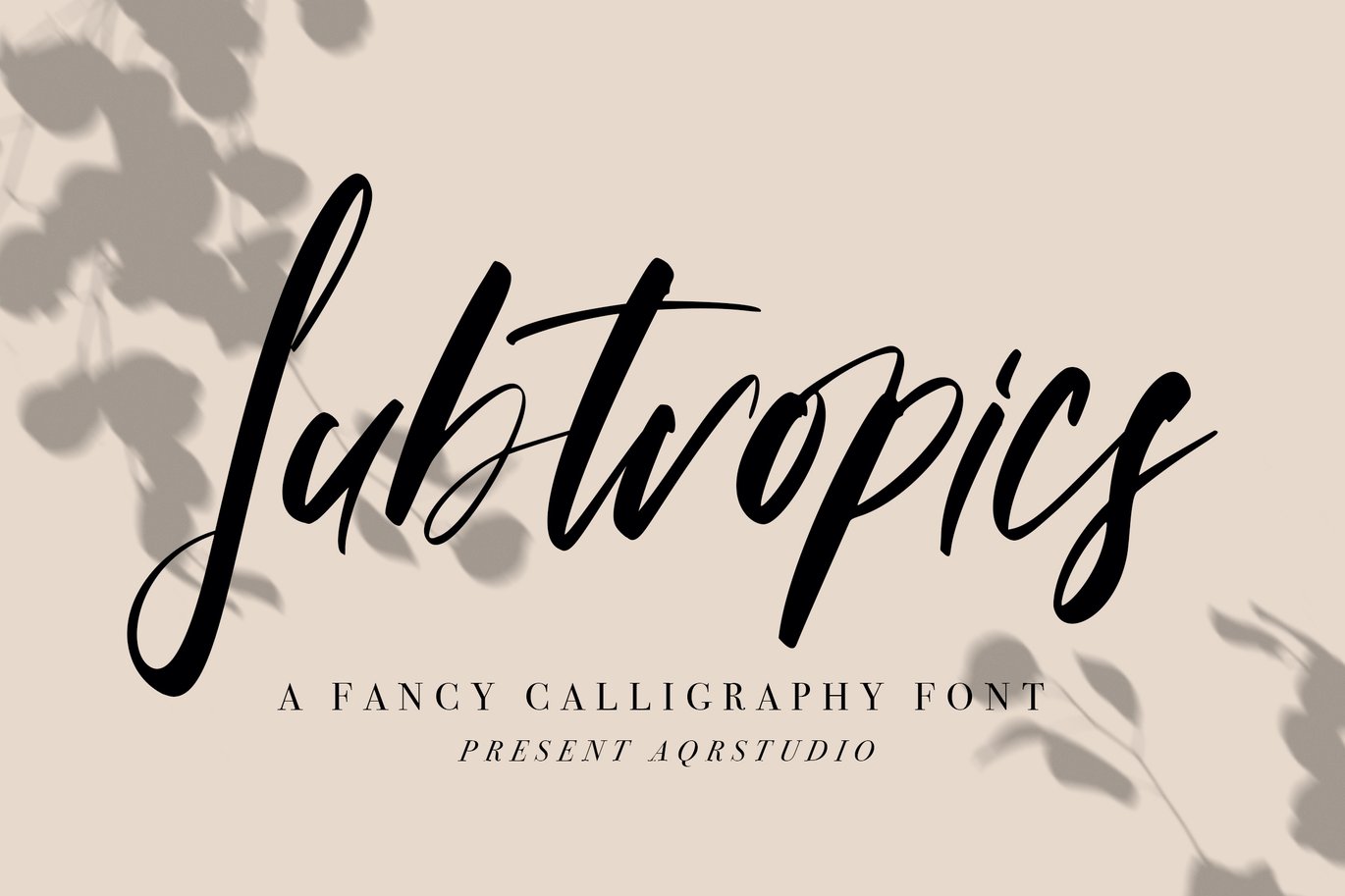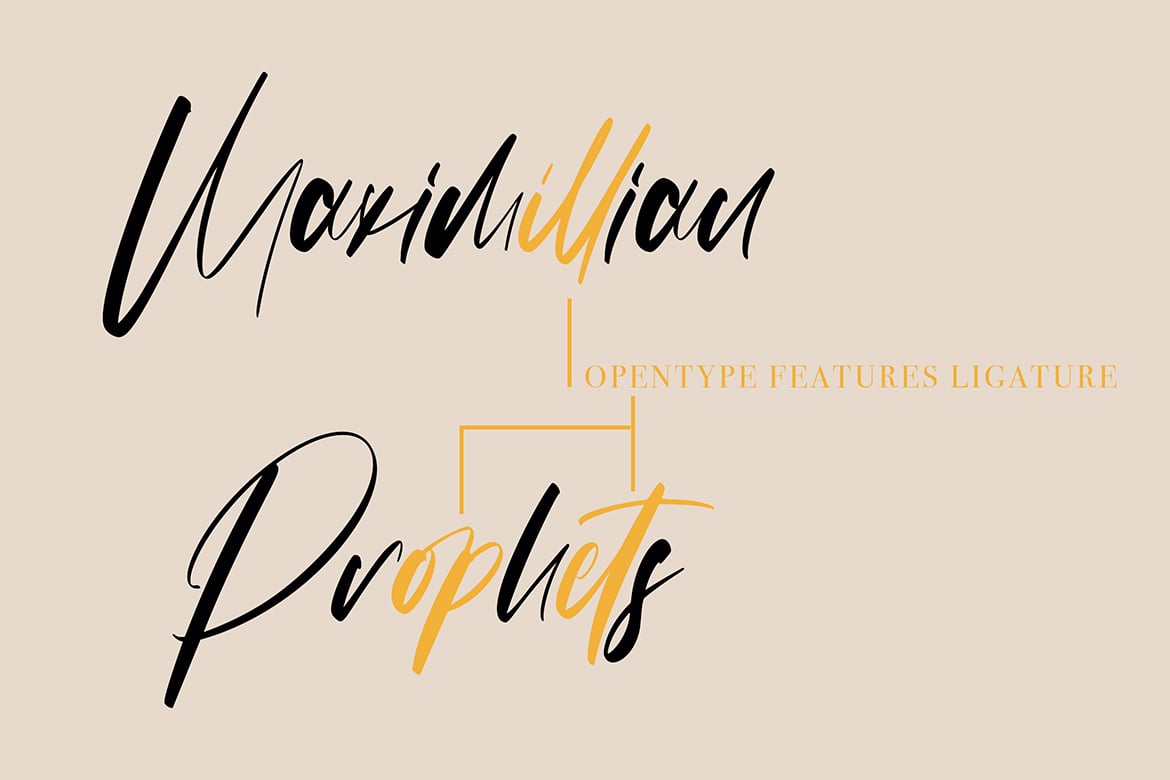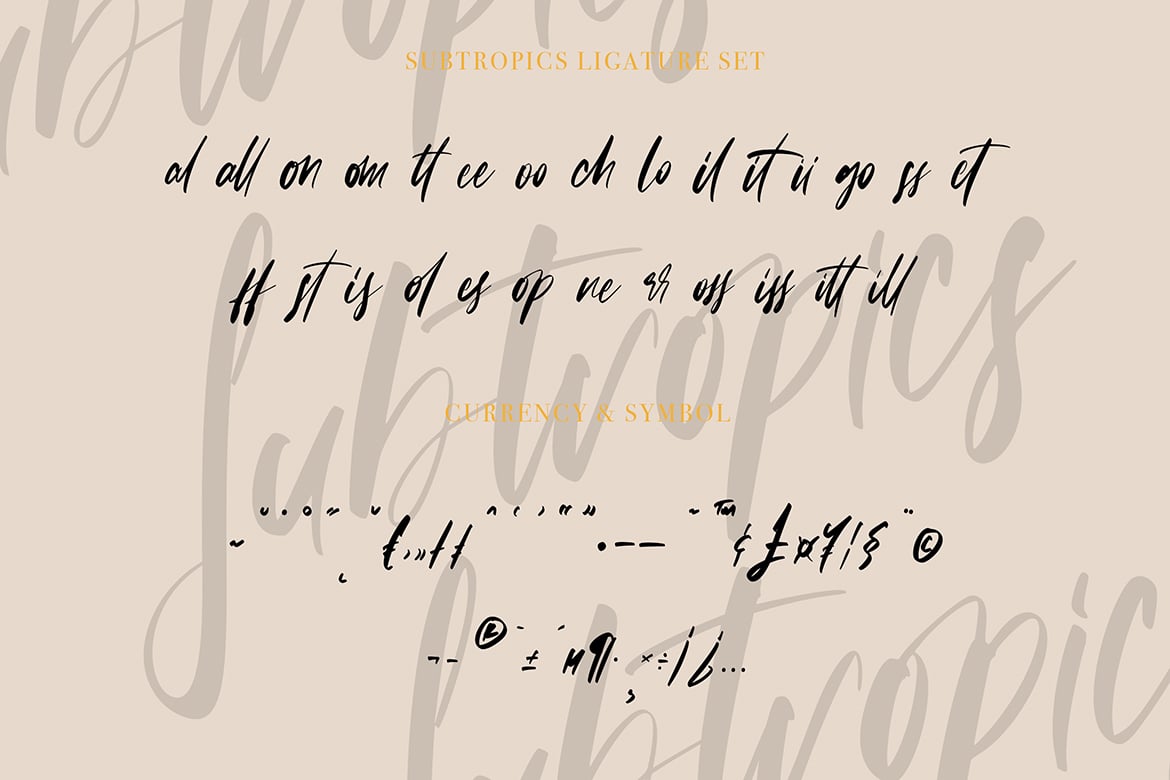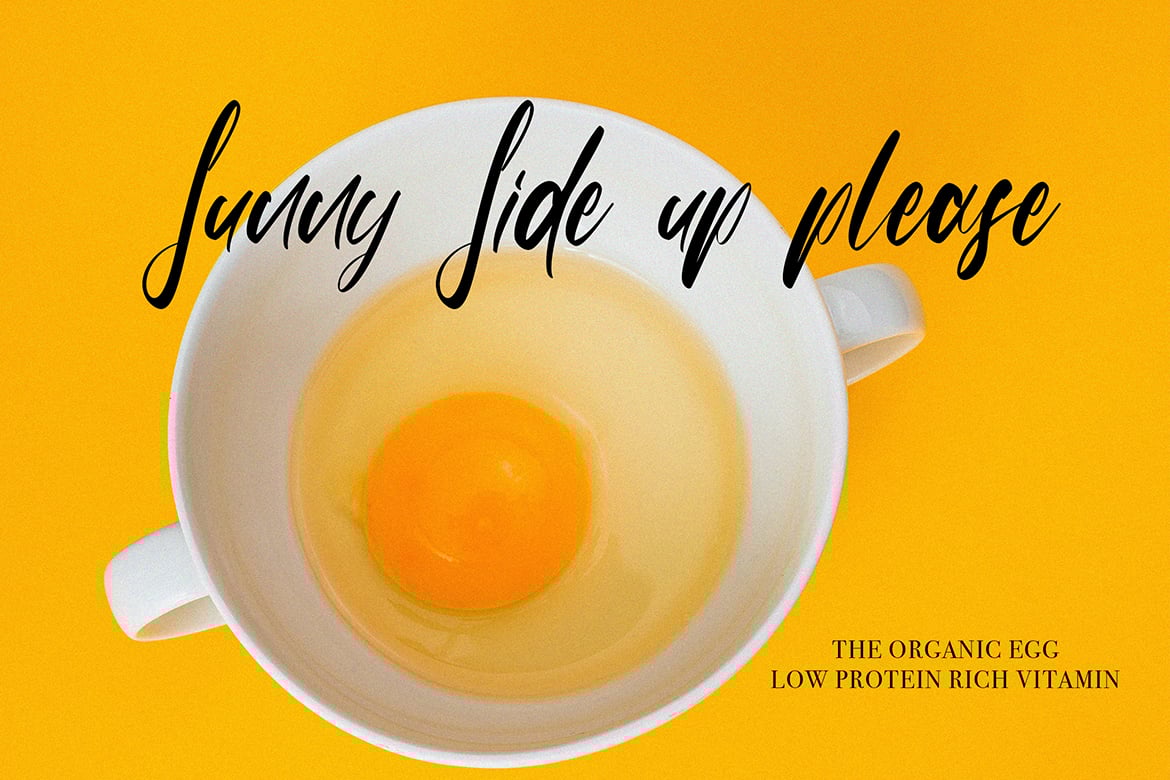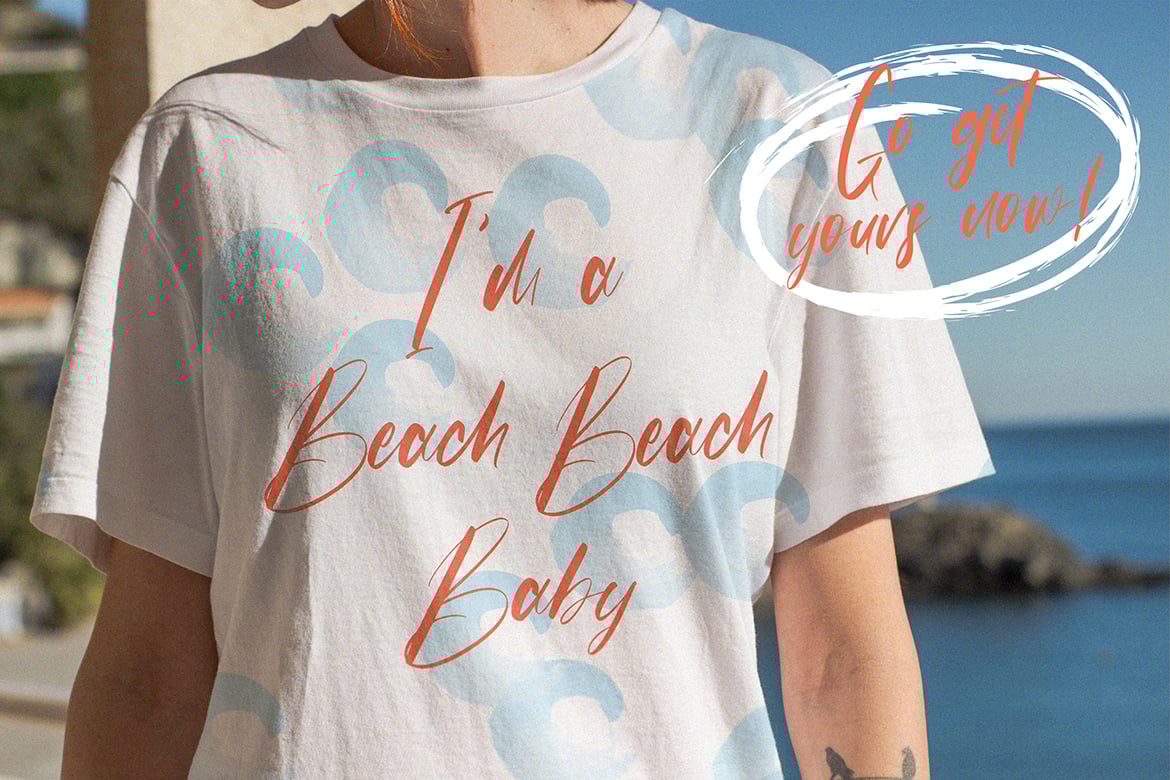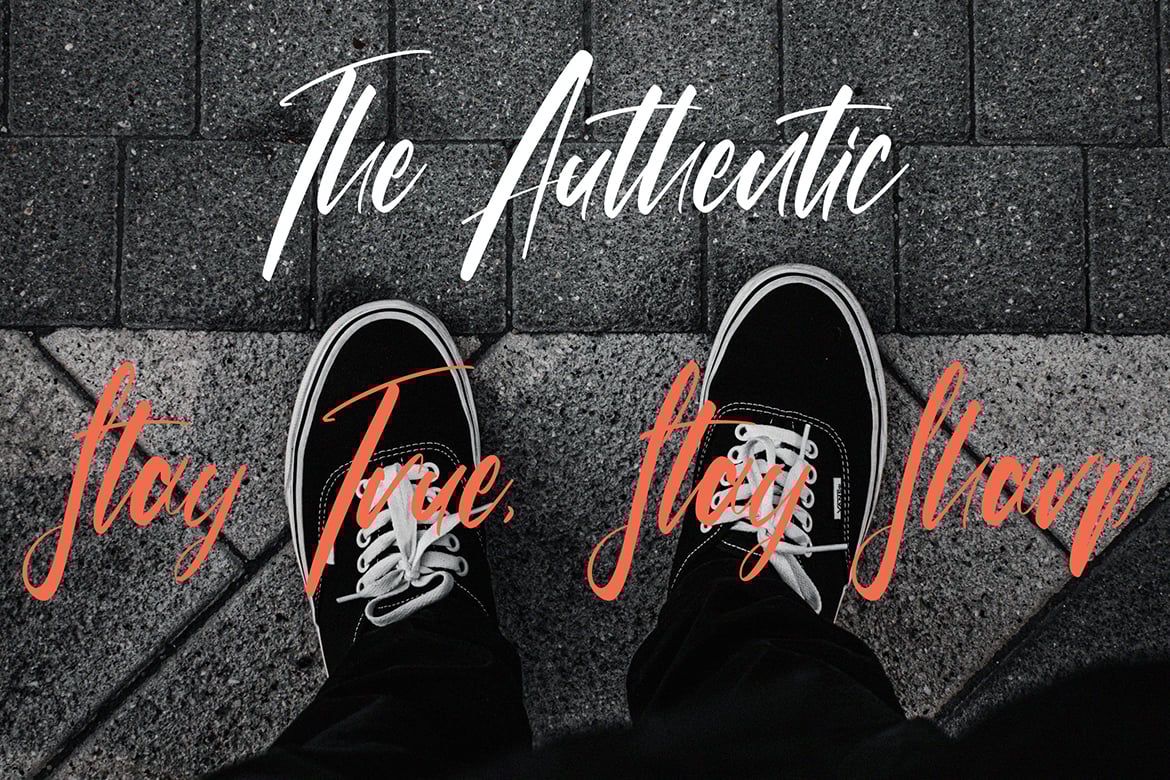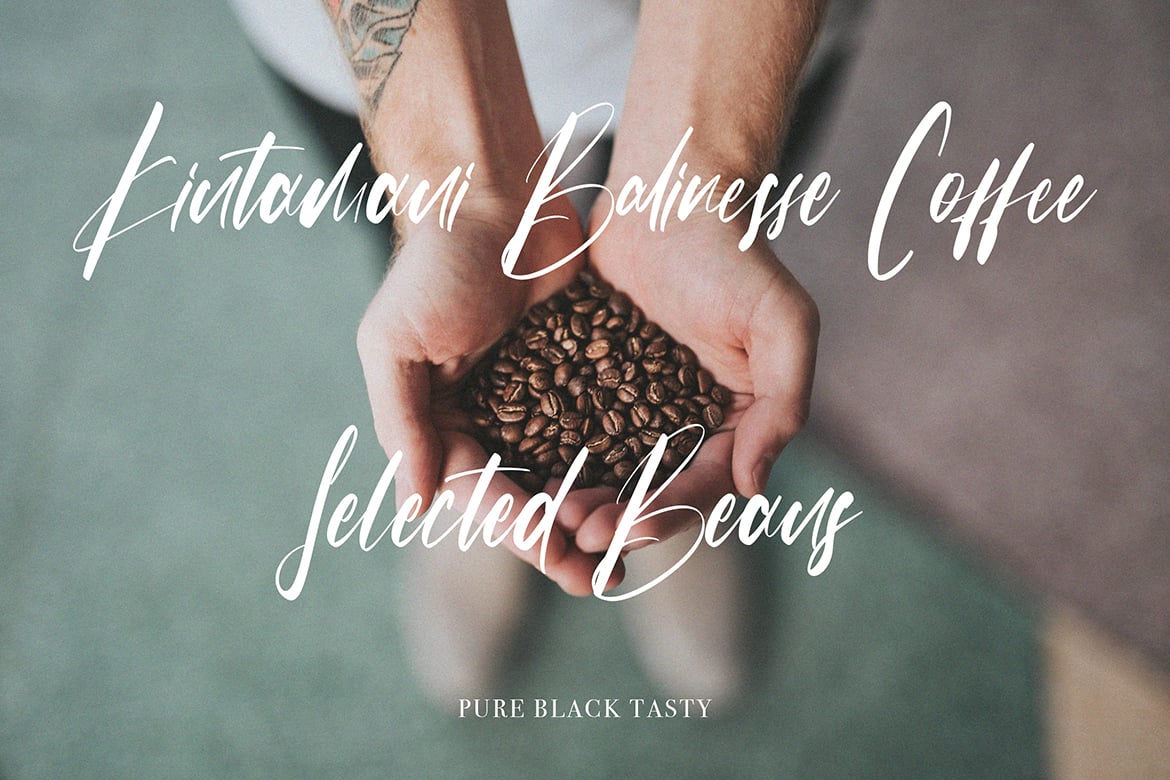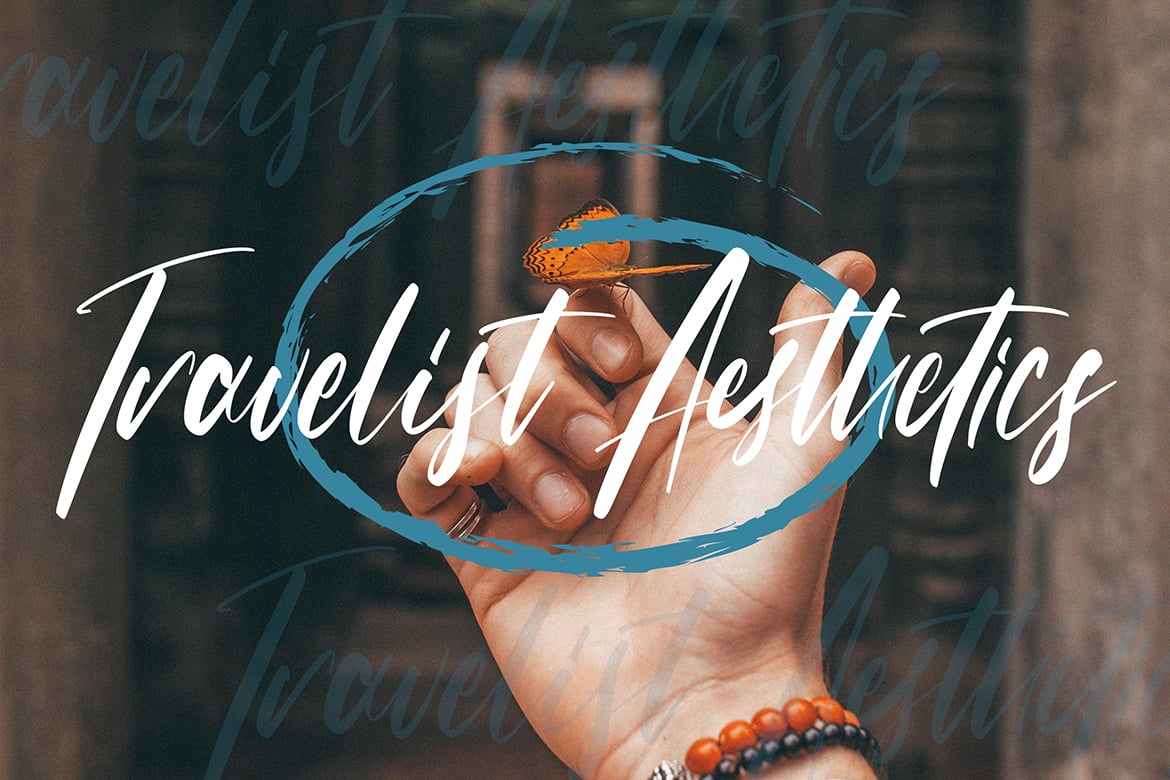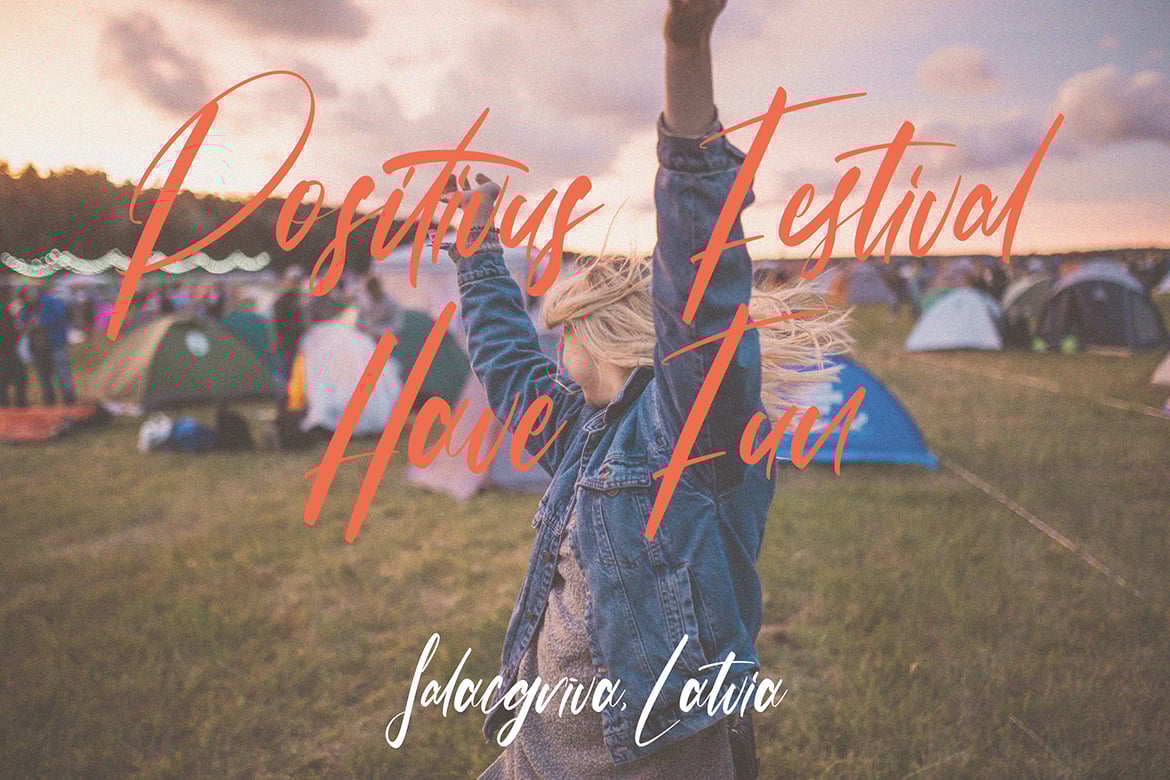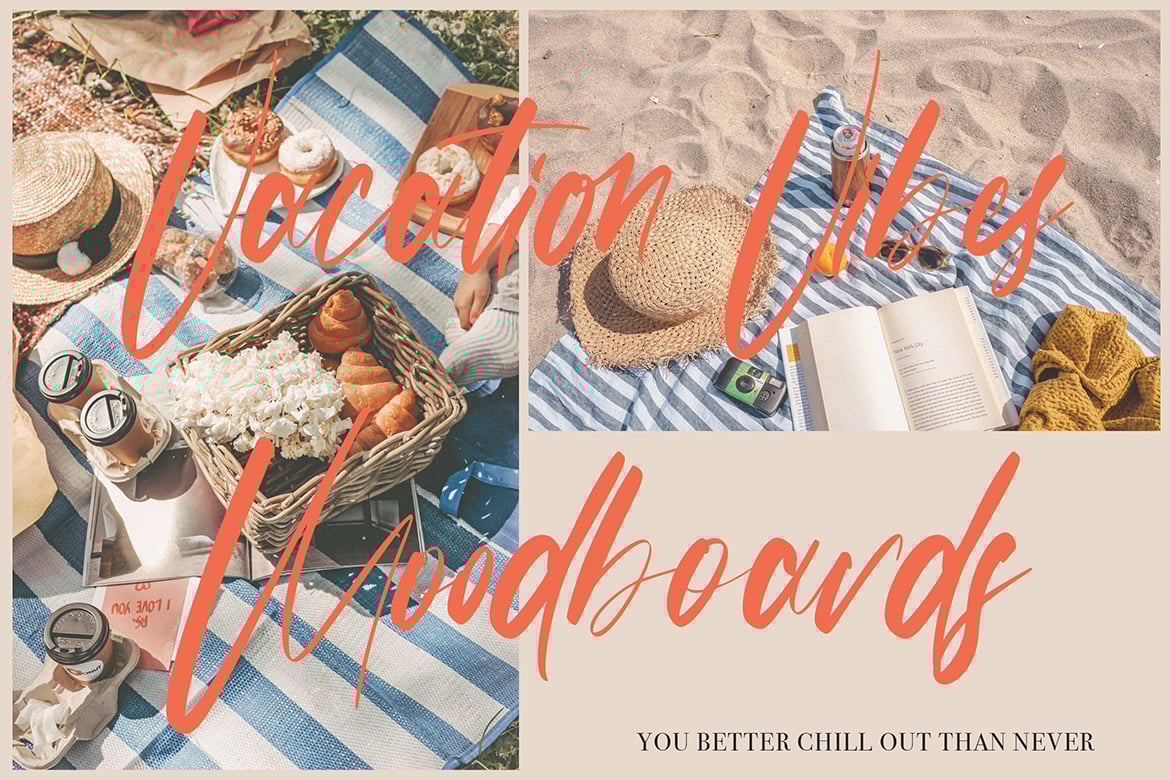
Subtropics – Fancy Calligraphy Font
Subtropics – Fancy Calligraphy Font contains a lowercase, uppercase, symbol, and also supports multi-language. There’s a lot of ligature in this font. Subtropics – Fancy Calligraphy Font also comes with ligatures, stylistic alternates and many more.
this font suitable for fashion, branding, catalog and other design that you want.